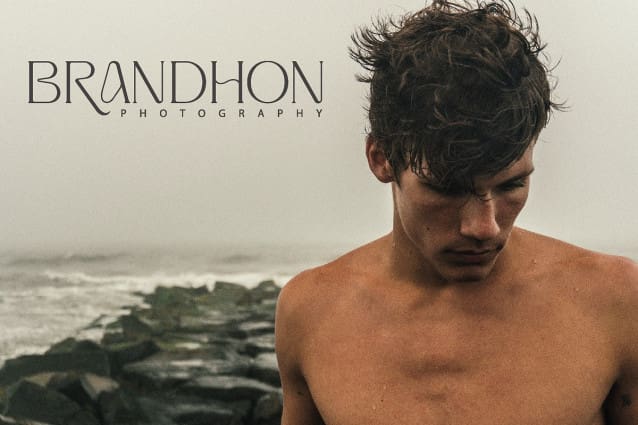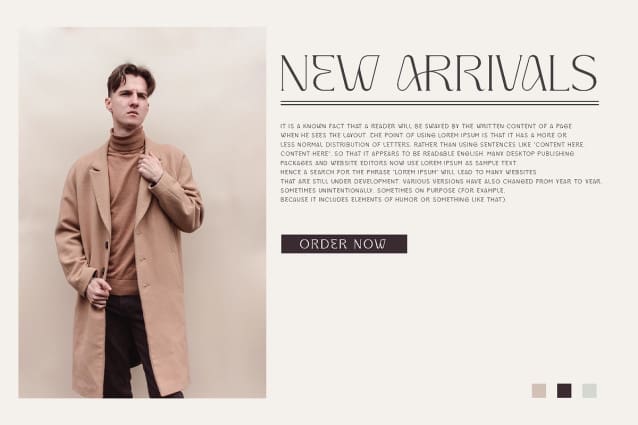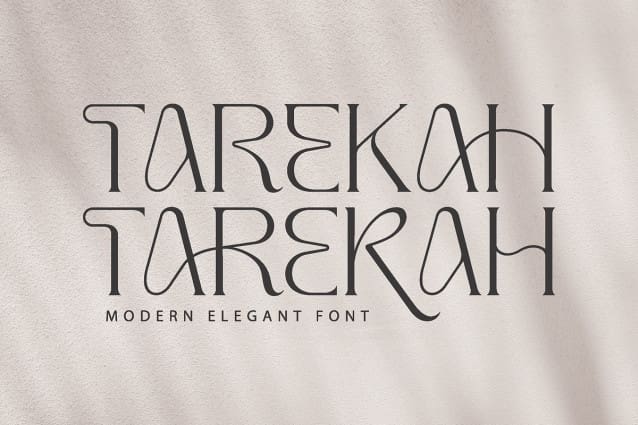
Tarekah Font
Tarekah Font – Modern Serif Font, created by Denustudios, A serif modern and classic typeface that has own unique style & modern look. This typeface is perfect for an elegant & luxury logo, book or movie title design, fashion brand, magazine, clothes, lettering, quotes, and so much more.